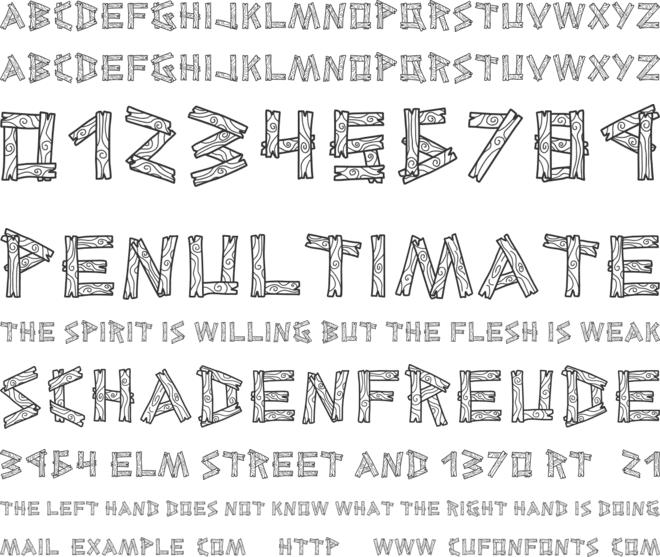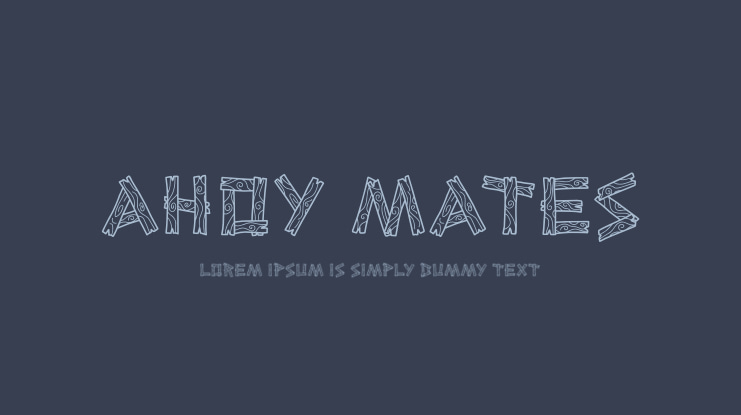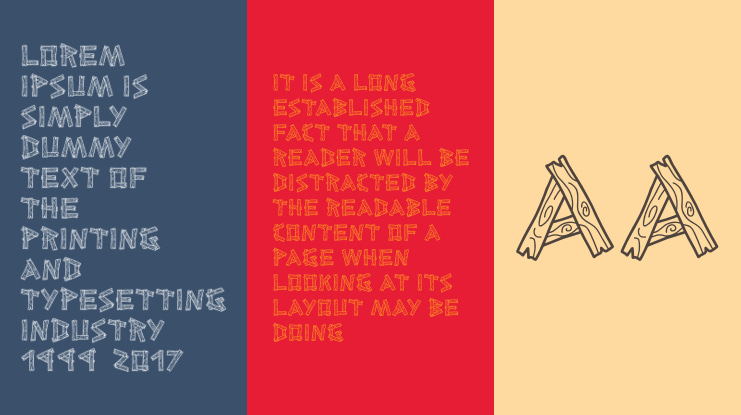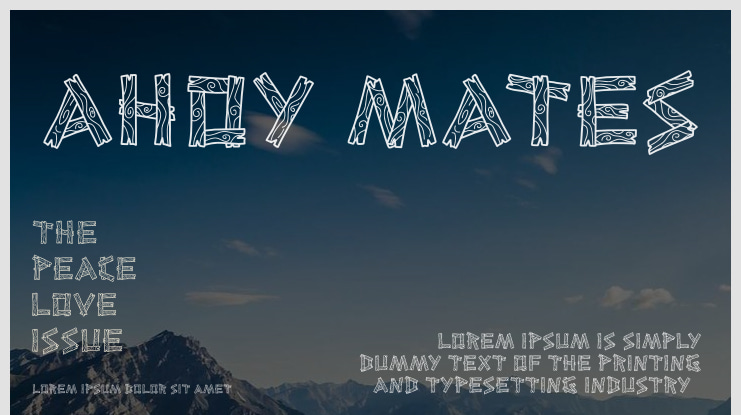
Ahoy mates Font
Introducing a delightful pirate-themed coloring font that is sure to bring a smile to your face! This whimsical font was crafted using the Fontself app on the iPad. It's perfect for adding some playful fun to your creative projects. Please note, this font is intended for personal use only.